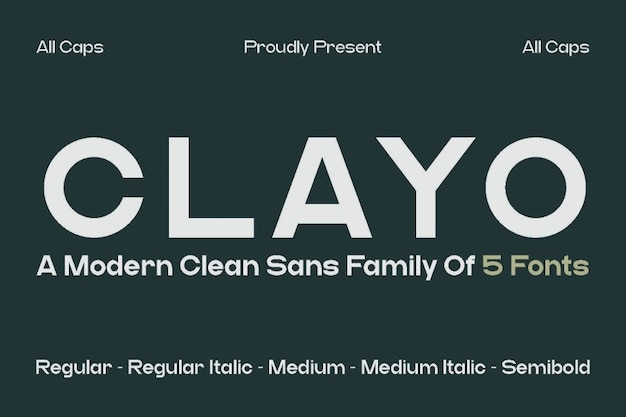
Clayo Font
Maiko Hatta
"Clayo" is a sleek, modern font designed with simplicity in mind, perfect for tech-oriented projects. Its clean lines and minimalist aesthetic ensure clarity and readability across various platforms. Ideal for digital branding, websites, and user interfaces, "Clayo" captures the essence of contemporary technology while maintaining an approachable vibe, making it a versatile choice for any modern design.